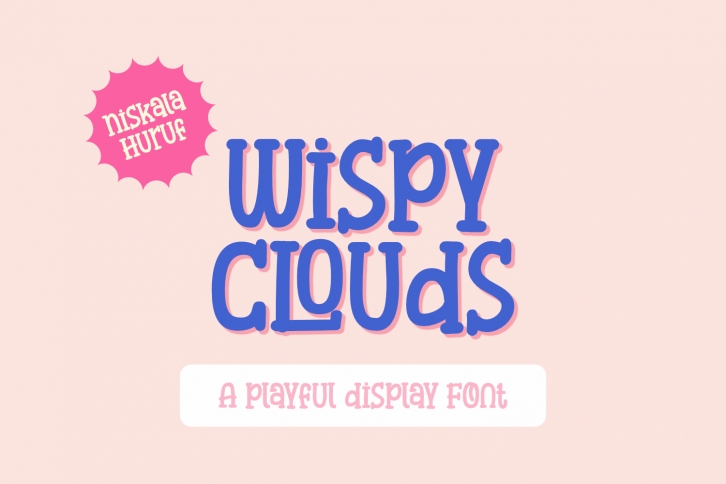
Wispy Clouds is a cute, quirky and playful display font. It embodies playfulness and authenticity and is the perfect choice for any children activity or school project.